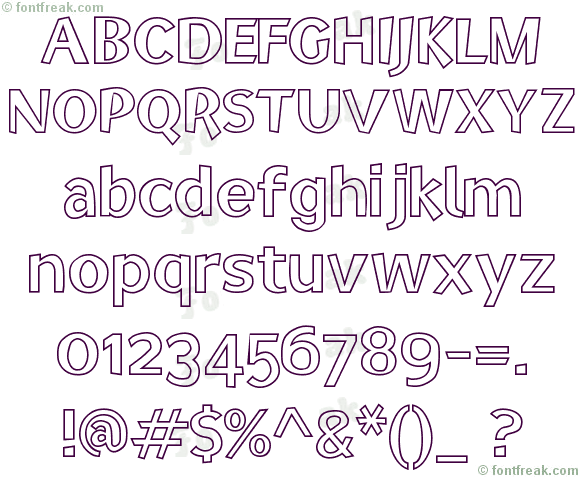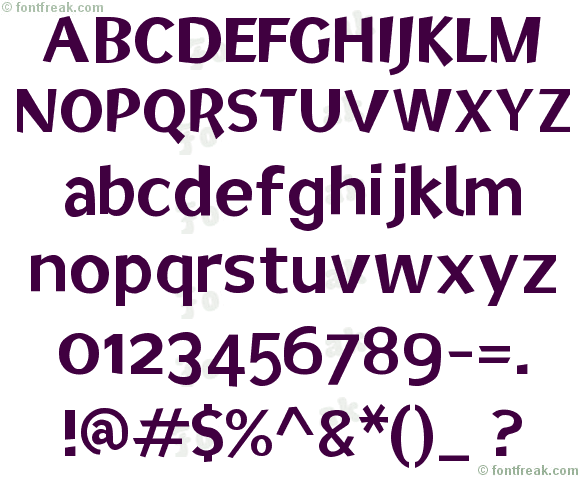
Elected Office Outline
Elected Office
Elected Office by Tepid Monkey Fonts is a striking display font that captures attention with its bold and confident design. This sans-serif typeface features clean lines and a modern aesthetic, making it an excellent choice for a variety of projects. Its stroke weight is consistent throughout, providing a stable and cohesive appearance, while the generous spacing between characters enhances legibility. The outline style adds a unique touch that contributes to its overall visual appeal, making it stand out in any design context.
The Elected Office font is particularly well-suited for use cases that demand a strong visual presence. It works beautifully for political campaign materials, where clarity and impact are essential. Additionally, it can elevate branding efforts for small businesses, giving a modern edge to logos and promotional materials. Event posters, especially for community gatherings or public speaking engagements, will benefit from the font's boldness. Lastly, it’s an ideal choice for social media graphics, where eye-catching visuals can significantly increase engagement.
Targeting graphic designers, small business owners, and content creators, Elected Office provides a versatile option for those looking to make a statement with their typography. The font's free availability enhances its appeal, allowing users to experiment without financial commitment.
What makes the Elected Office font particularly noteworthy is its ability to convey authority while remaining approachable. The combination of its bold style and clean lines ensures that it captures attention without overwhelming the viewer. For anyone seeking an Elected Office font free download, this typeface promises to deliver a professional and polished look for any project. Its distinctive character and versatility will undoubtedly enrich your design toolkit.